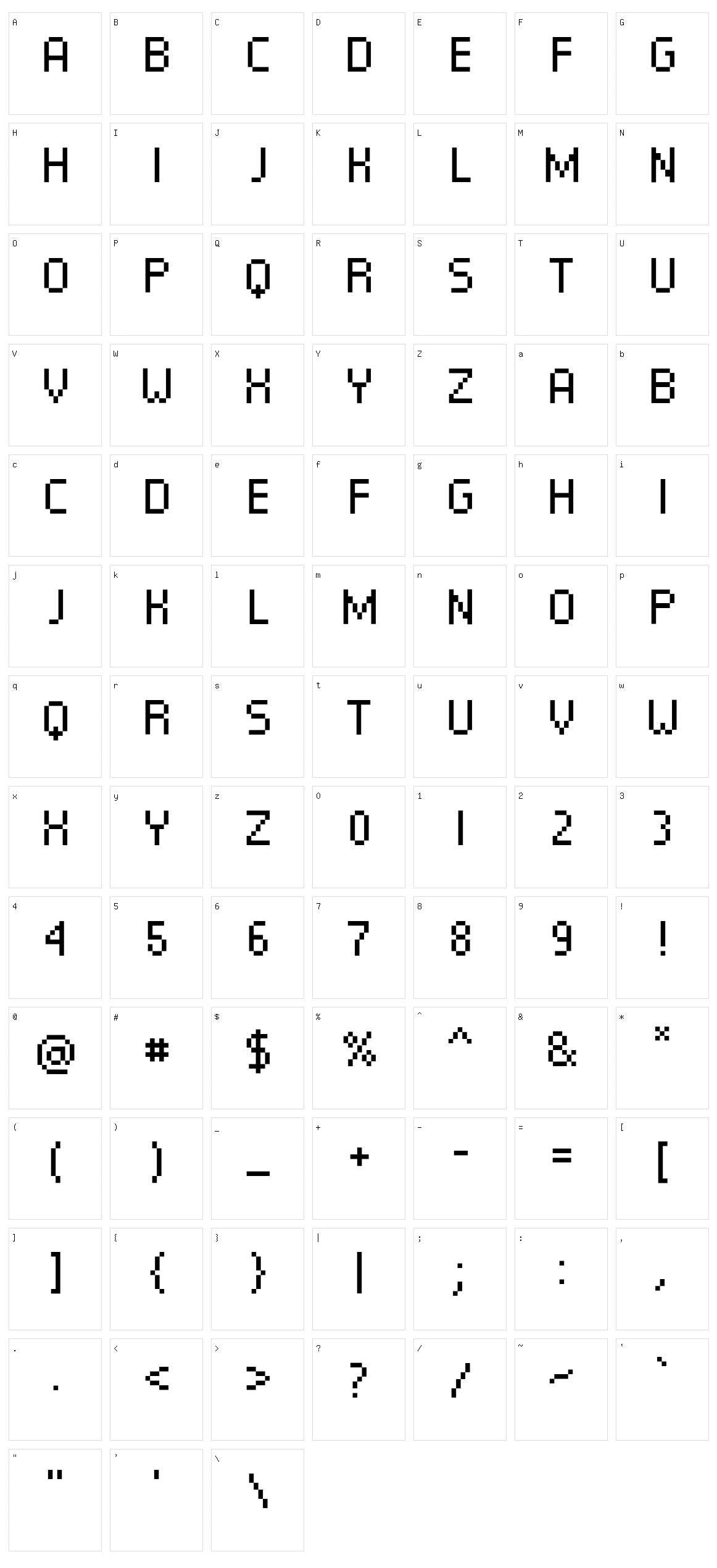
VP Pixel
VP Pixel is a font family of eight classic pixel styles that feel both retro and futurist.
All styles include an extensive character set with support for advanced OpenType features.